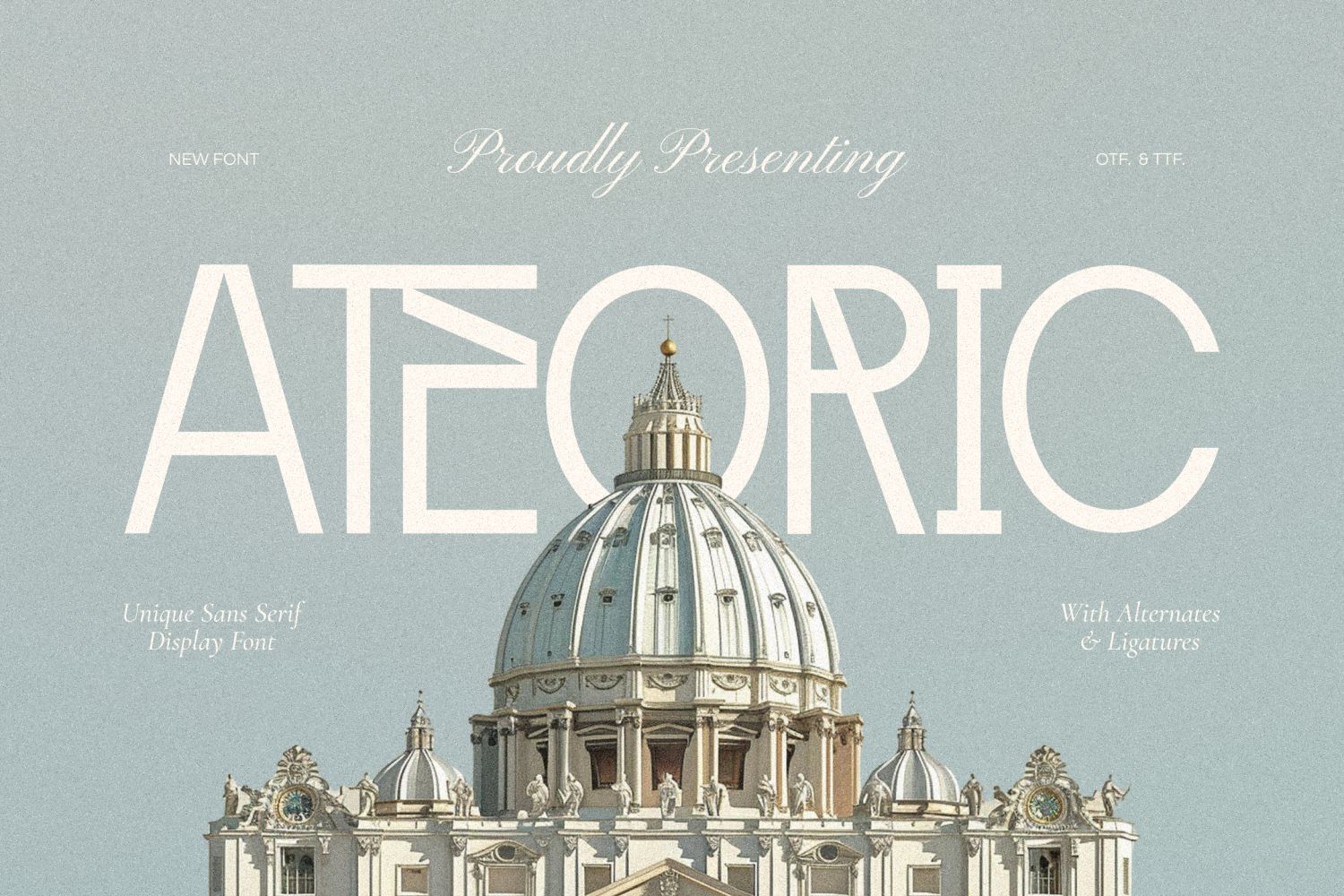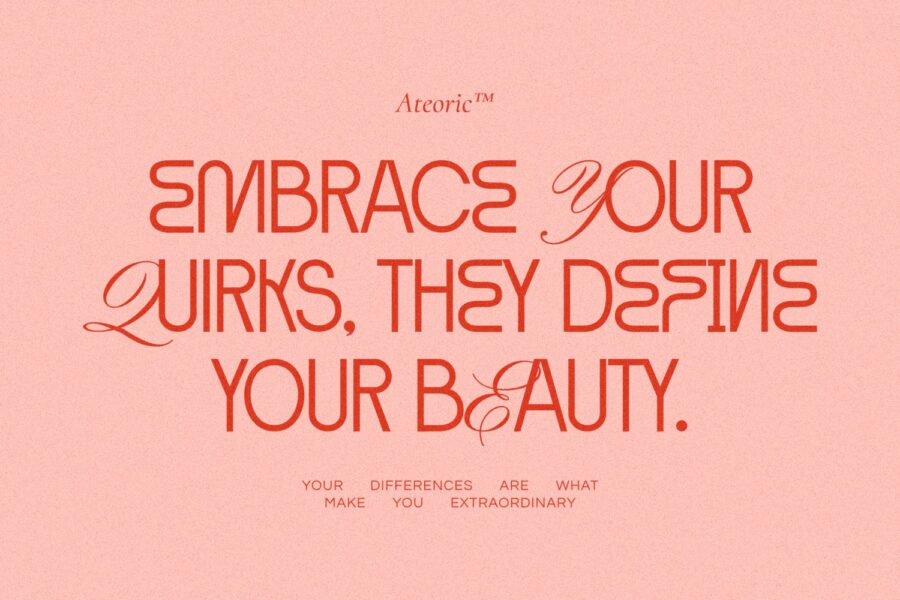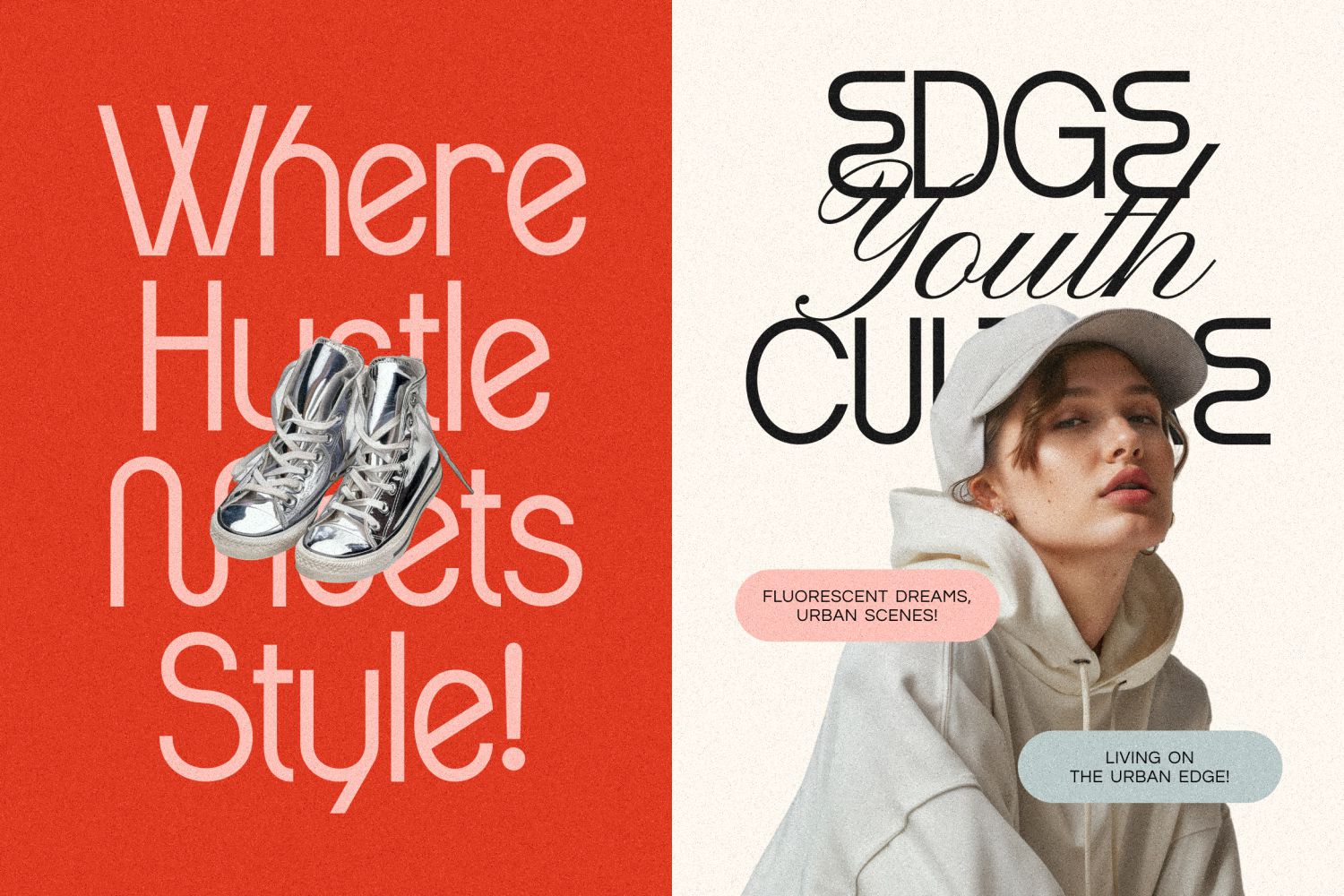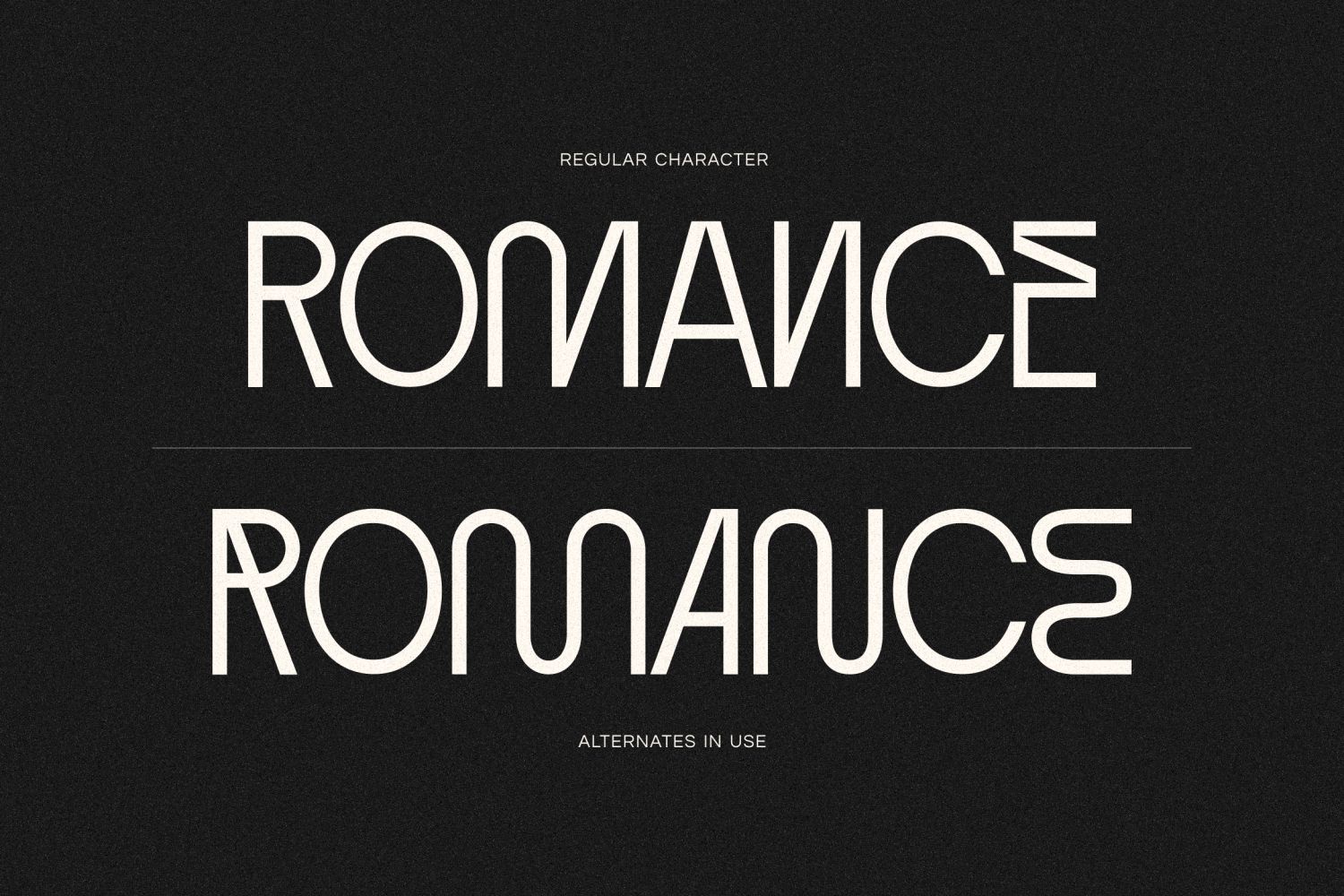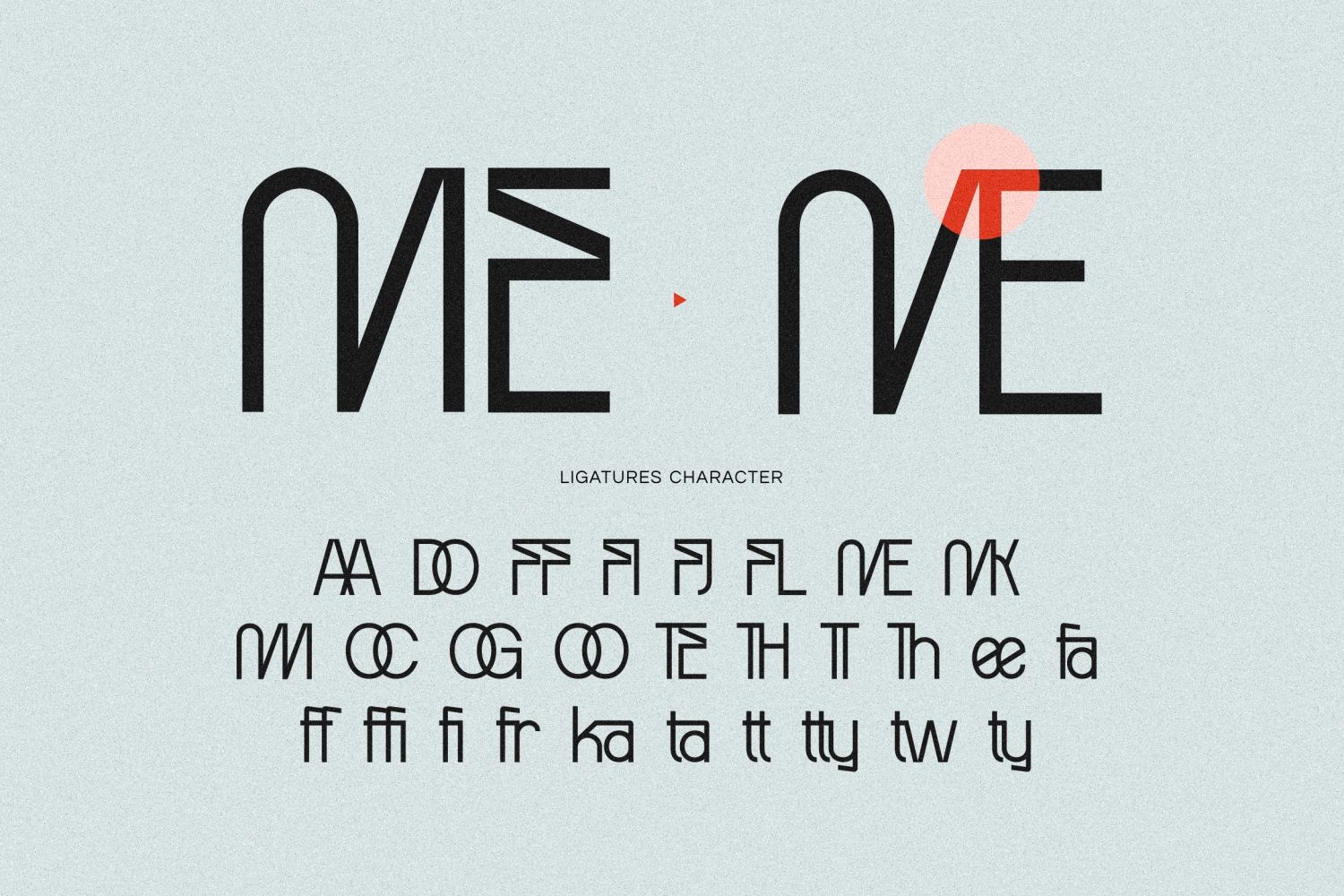
Ateoric is a modern sans serif display font with a truly distinctive personality, blending sleek geometric lines with creative, artistic alternates and ligatures. Its unique letterforms and refined curves make it ideal for projects that demand a contemporary yet expressive aesthetic. Perfectly balanced between minimalism and artistry, Ateoric brings sophistication and flair to branding, editorial designs, posters, and high-end fashion identities.
With a versatile range of alternates and stylistic ligatures, Ateoric allows you to craft custom typography that stands out in any setting. Whether you’re creating a bold headline, a stylish logo, or an elegant packaging design, this font delivers impact and character. Its clean yet inventive style makes it a go-to choice for designers aiming to combine modern elegance with distinctive visual storytelling.